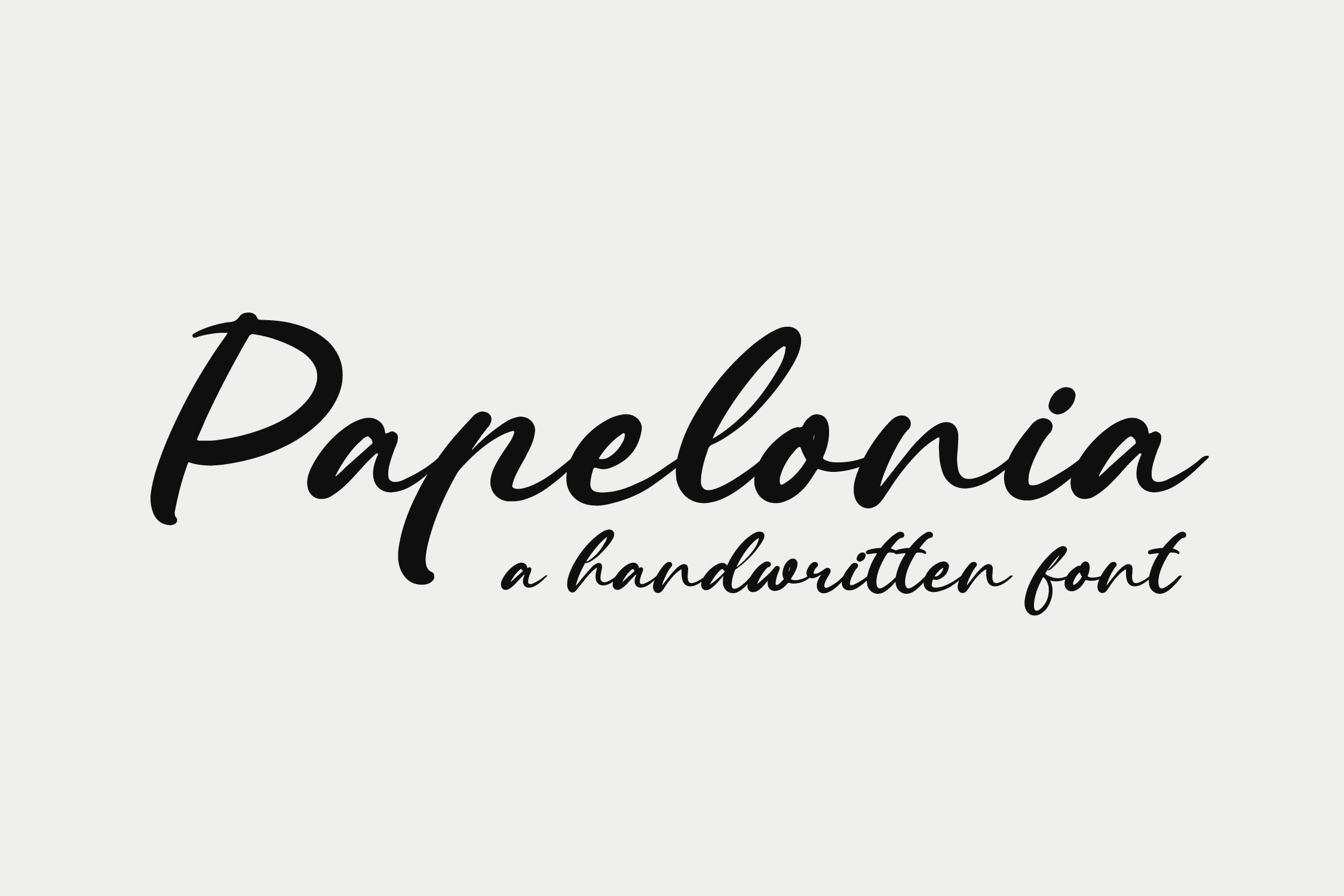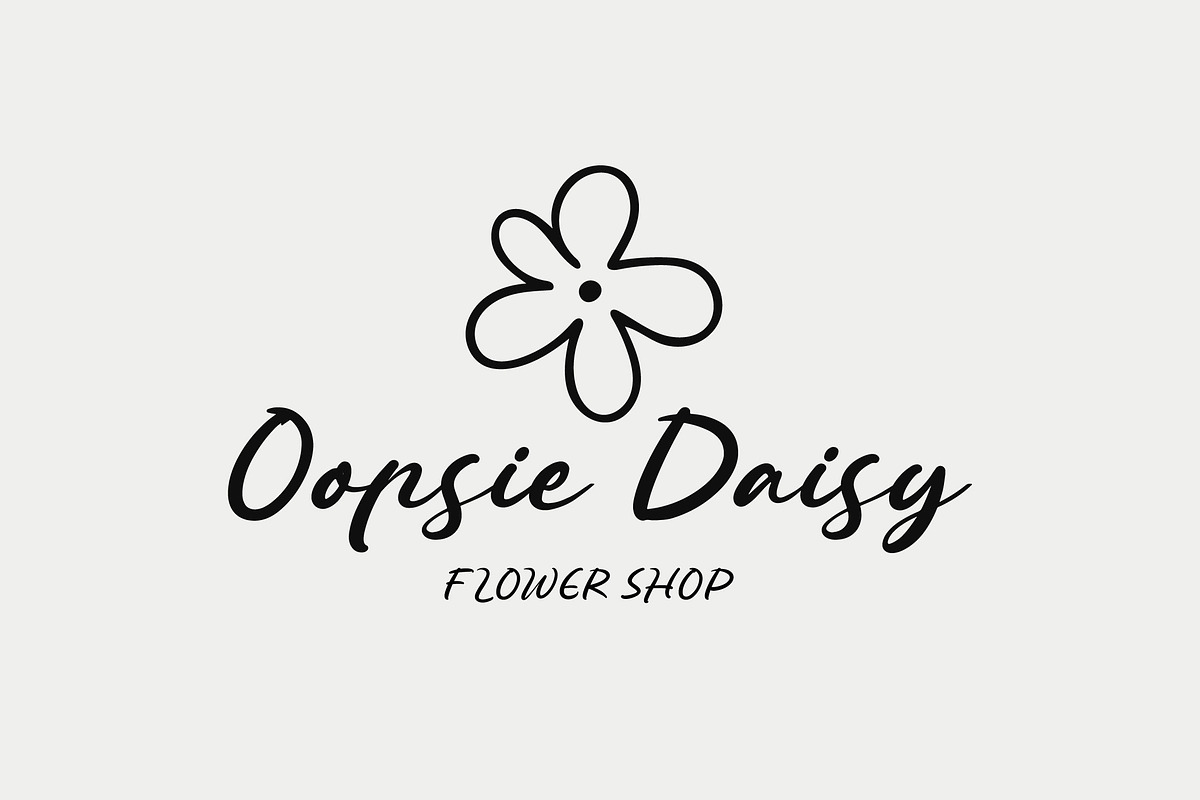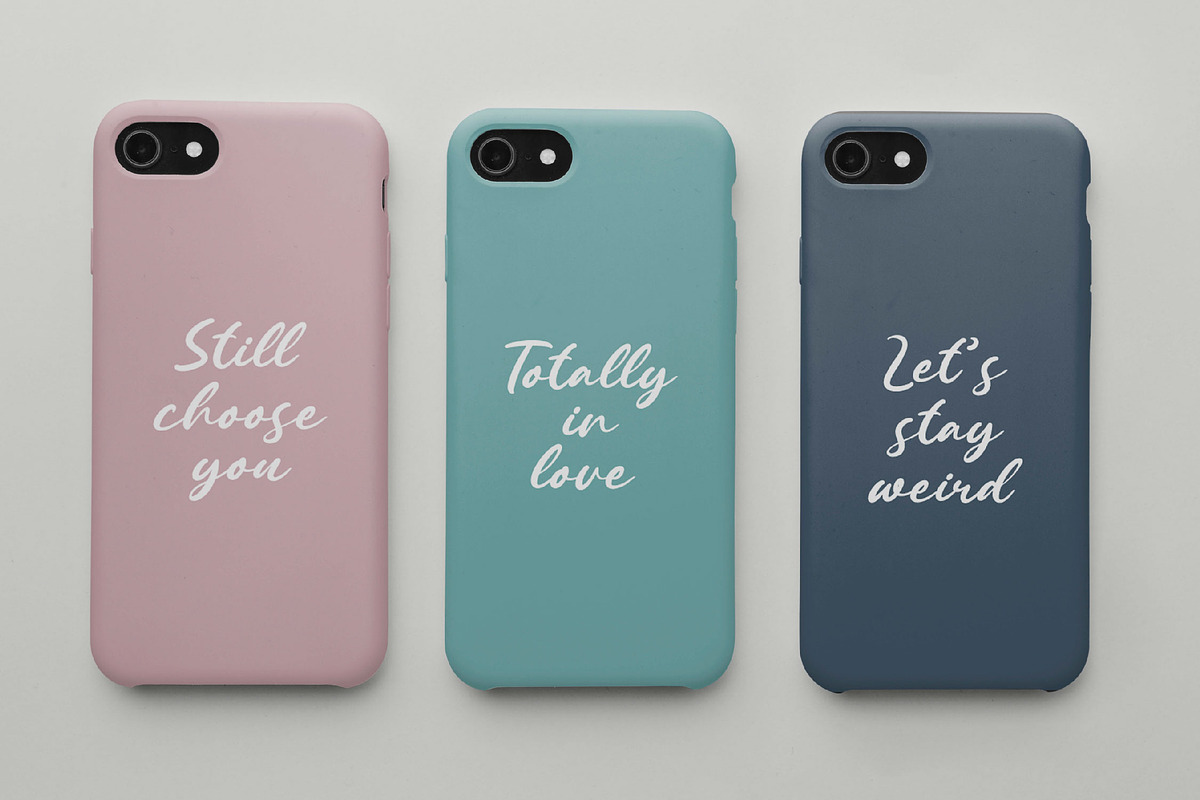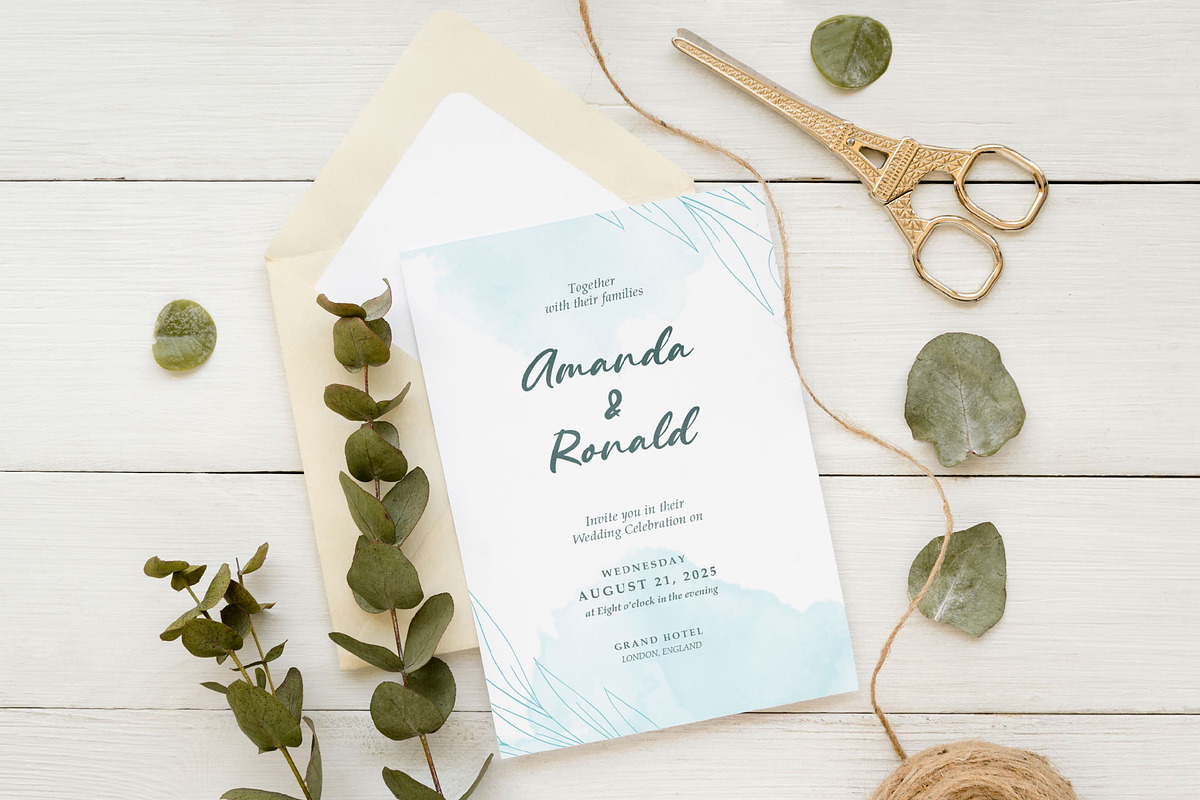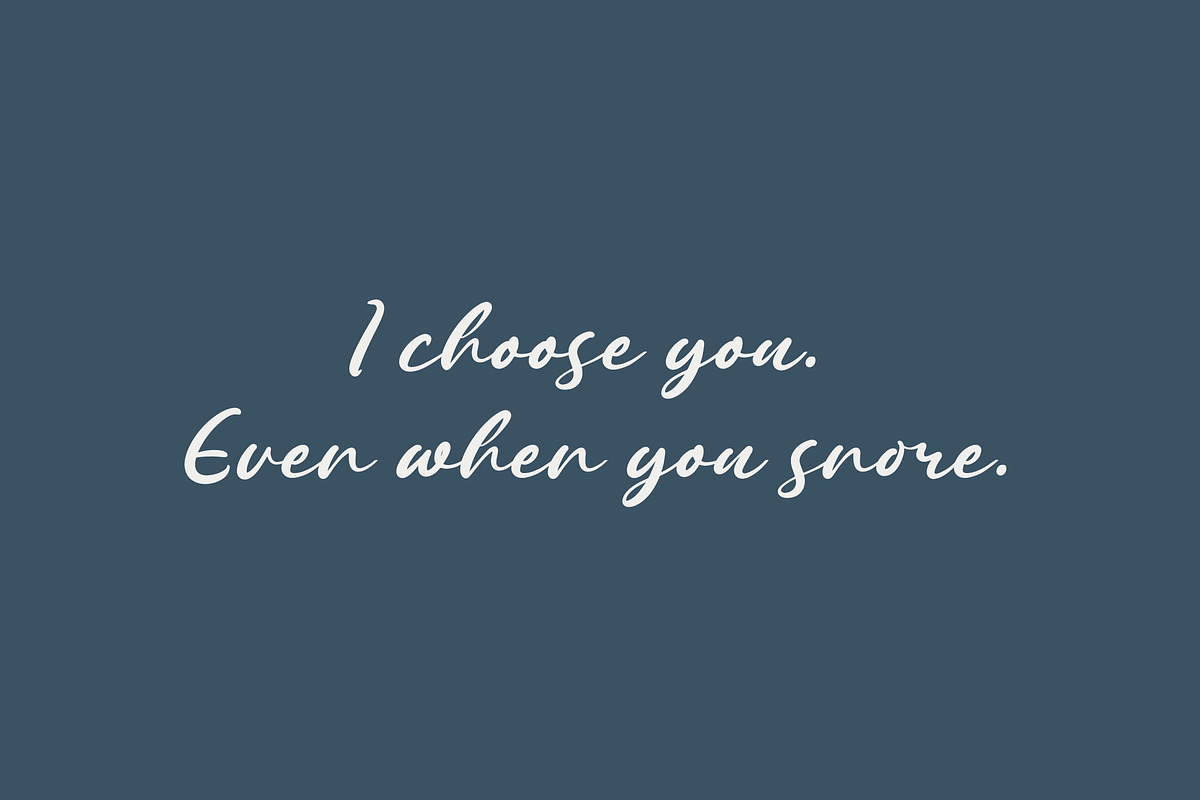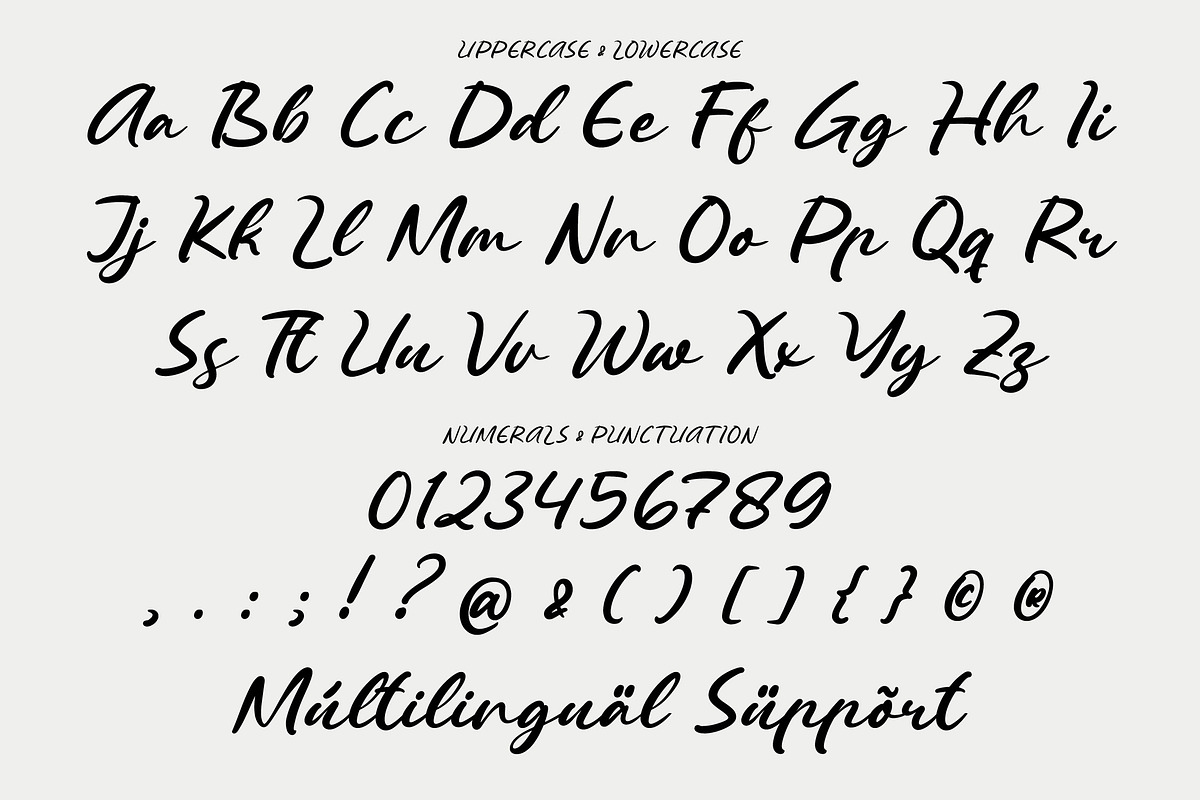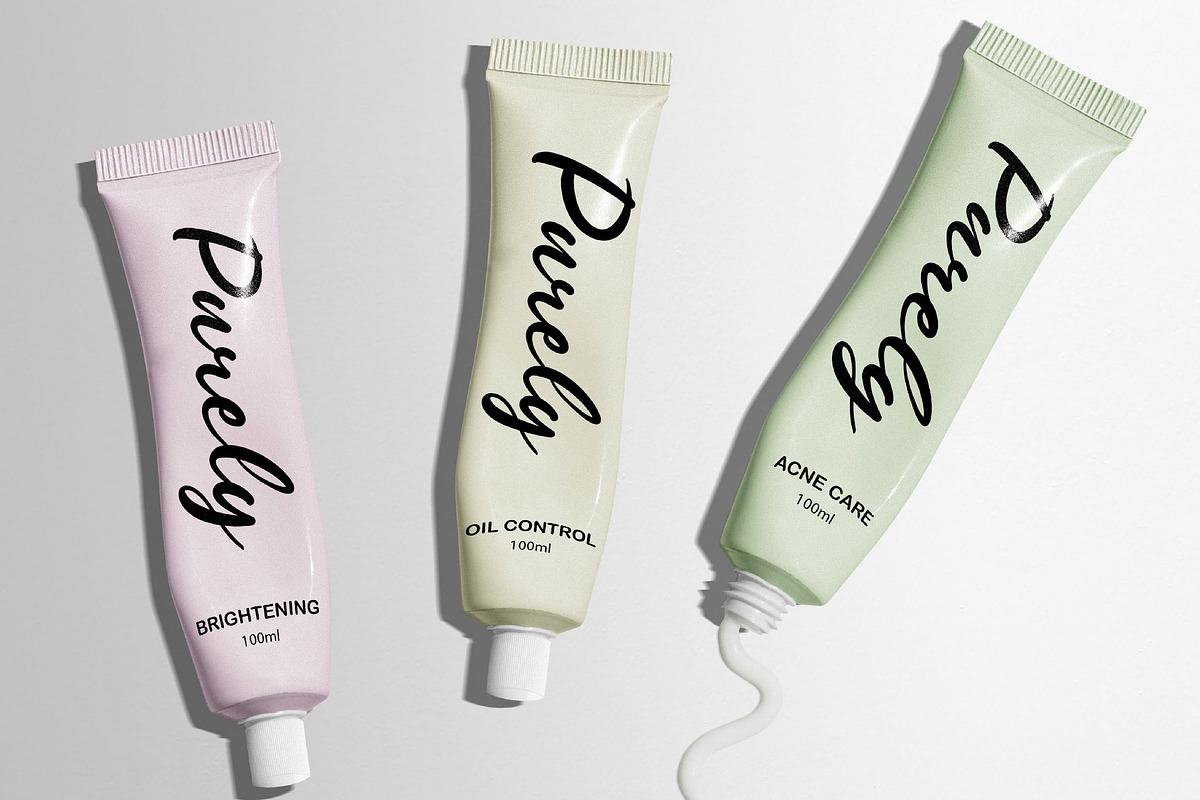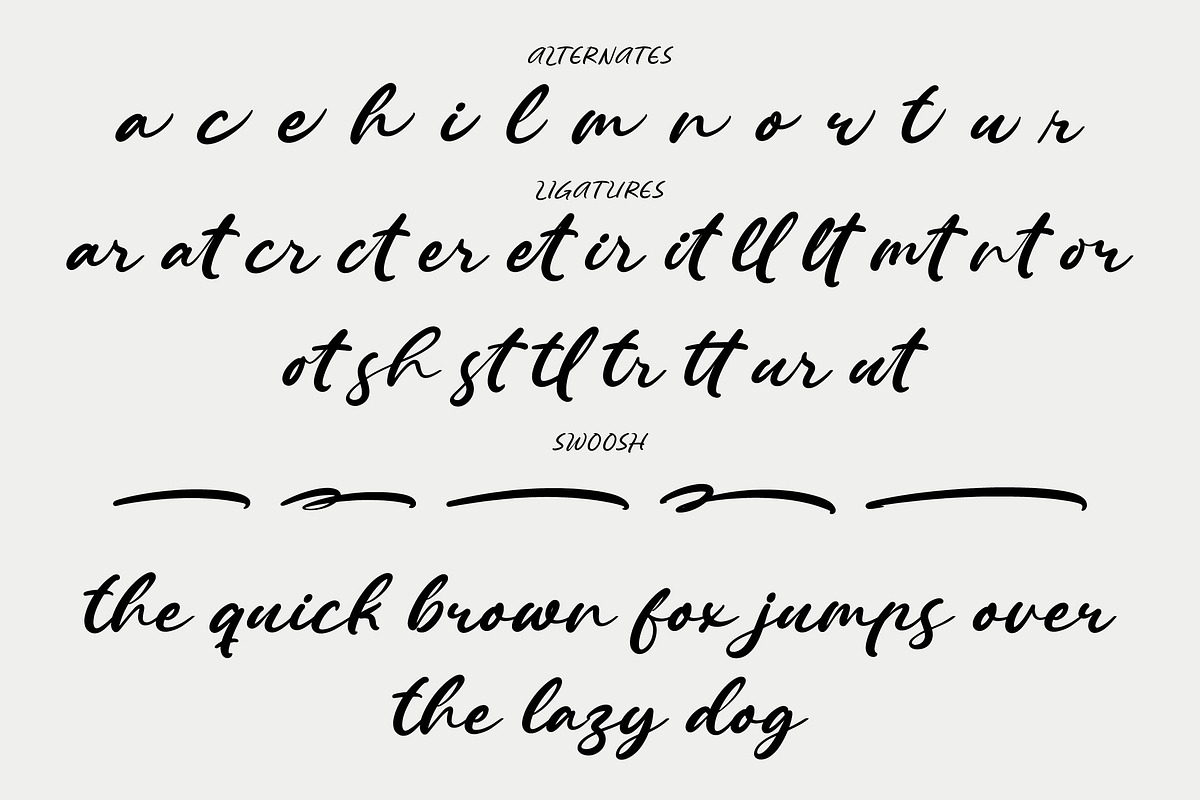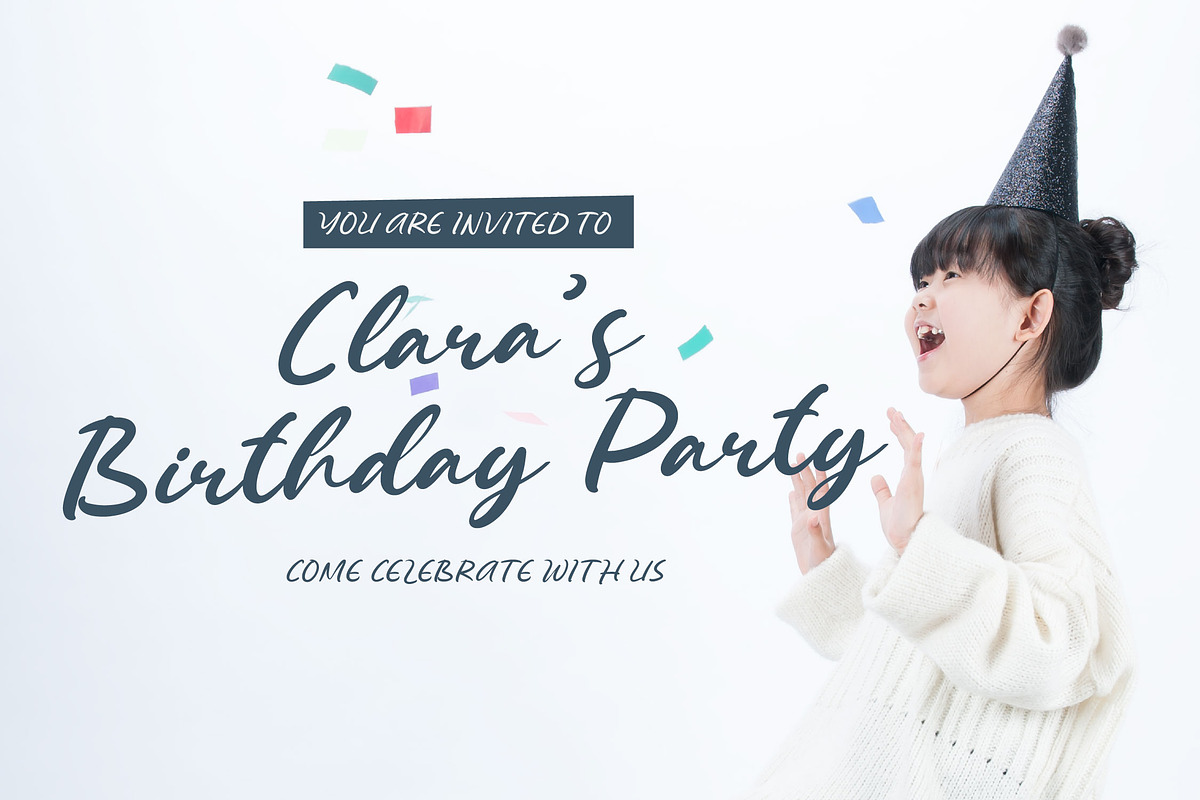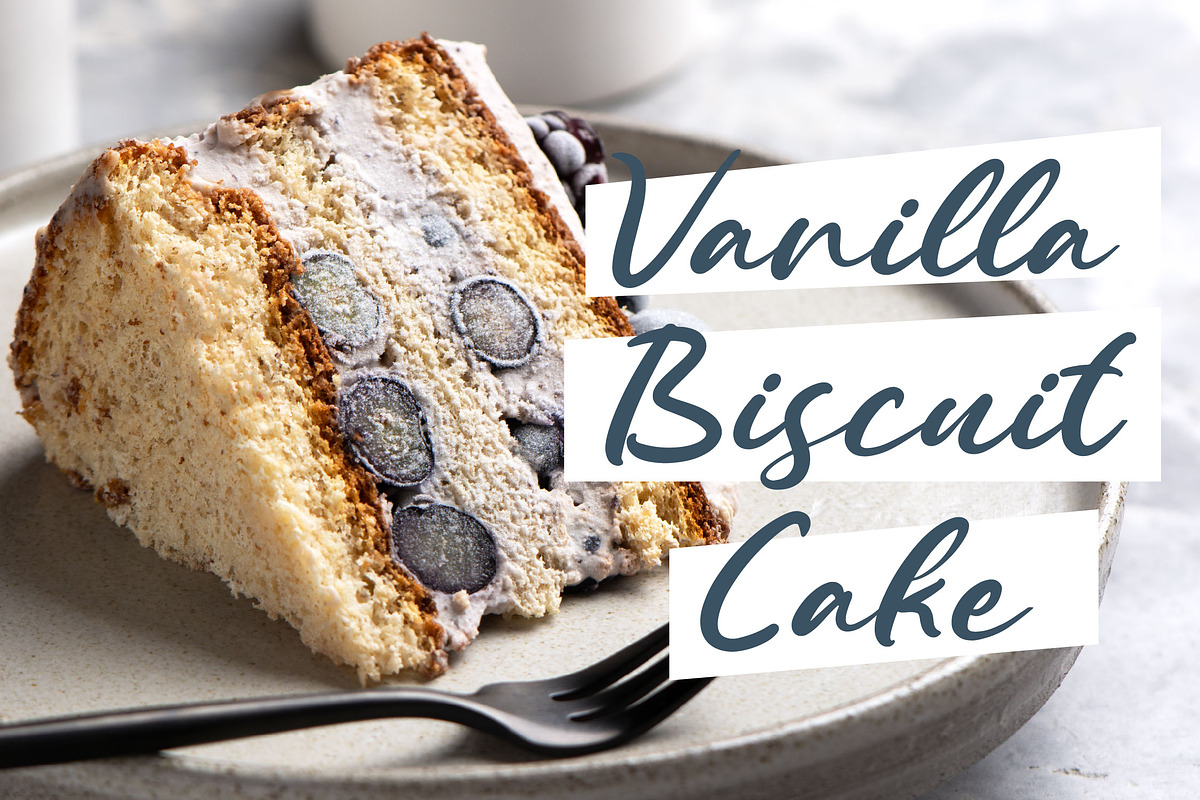
Papelonia - Handwritten Font
Papelonia is a casual handwritten script font that captures a natural, free-flowing aesthetic. With smooth curves and organic strokes, it brings a warm and personal touch to any design, as if it were written by hand with care and creativity.
Versatile and stylish, Papelonia is perfect for a wide range of design needs such as logotypes, wedding invitations, branding, greeting cards, product packaging, quotes, and social media graphics. Whether you're going for an elegant, friendly, or handcrafted look, Papelonia delivers a natural charm that makes your work stand out.